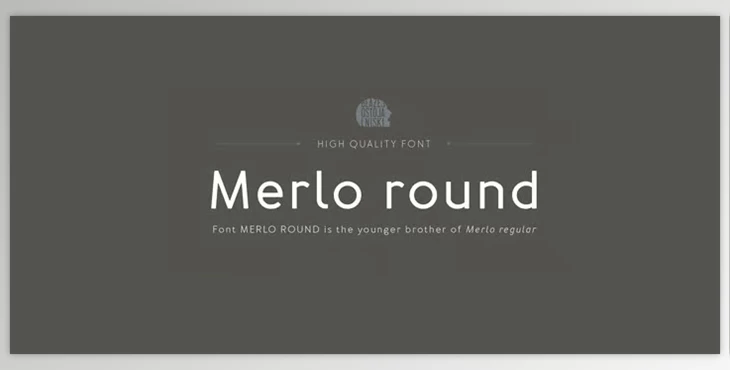
The Merlo Round Font Family is old meets new. The Merlo font is old school, but this family includes twelve styles of the font and generates with lowercase and uppercase letters. The Merlo font is inspired by Merlo type, which appears in "You And Me Monthly" from National Magazines Publisher RSW "Prasa", Poland, during 1960-1973 and distributed from 1960-1973.
Highly recommended for a seamless transition from old vibes to new purpose. This font is a great enhancer for anyone wanting to create beautiful works of design.